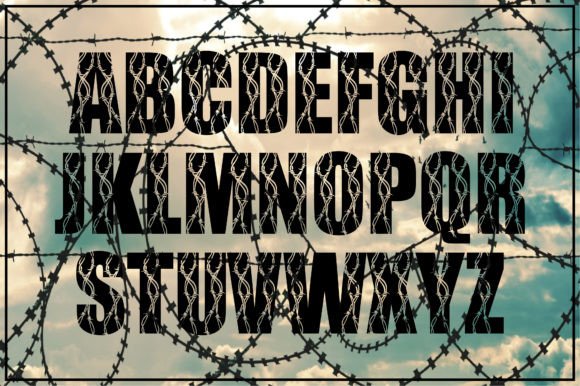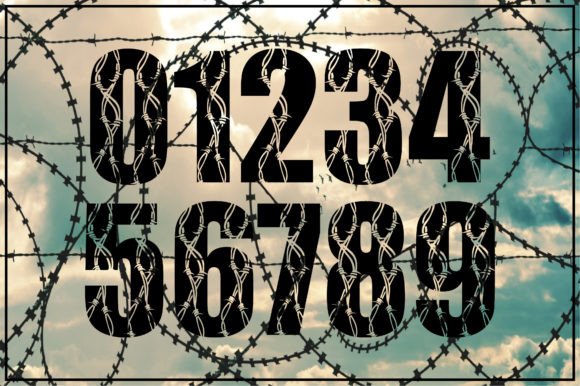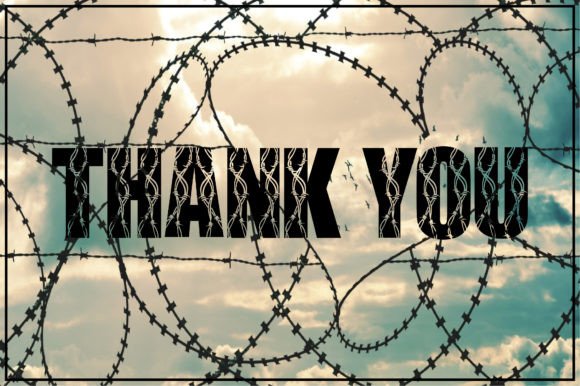
Get Ready to Unleash Your Creativity with the Barbed Wire Font
Meet the Barbed Wire Font, a cool and dramatic decorative font that’s perfect for any design or crafty idea. Its unique design makes it a valuable asset for designers looking to add a touch of sophistication to their work. Whether you’re a graphic designer, artist, or crafter, the Barbed Wire Font is sure to add a wow factor to your projects.
Barbed Wire Font Key Features
- Font Family: Barbed Wire Font is a sans-serif font family designed specifically for use in digital signage and wayfinding systems.
- Unique Characteristics: The font features a distinctive, hand-drawn aesthetic with a distressed, industrial feel, making it ideal for use in rugged or urban environments.
Designer Review: Barbed Wire Font
I was excited to dive into the “Barbed Wire Font” and see what it had to offer. Overall, I found it to be a unique and eye-catching font, but with some notable limitations. ✨
- ✨ Unconventional design: The “Barbed Wire Font” certainly stands out from the crowd. Its irregular, hand-drawn look gives it a charming, DIY feel that’s perfect for creative projects.
- ✨ Good legibility: Despite its unusual design, the font is surprisingly easy to read, especially in larger sizes.
- ✨ Versatility: The font comes in a range of weights and styles, making it suitable for a variety of applications, from headings to body text.
- ⚠️ Limited font size: While the font looks great in larger sizes, it can become difficult to read at smaller sizes. This may limit its use in certain applications.
- ⚠️ Limited language support: The font may not be suitable for languages that require more complex typography, such as Asian languages.
The “Barbed Wire Font” is a great choice for designers looking to add some personality to their projects. While it has some limitations, its unique design and good legibility make it a valuable addition to any font collection. With some careful use, this font can add a touch of whimsy and creativity to any design.
Getting the Most Out of the Barbed Wire Font
The Barbed Wire font is perfect for designs that need a distressed or vintage look. To get the most out of it, try combining it with other fonts and design elements to create a unique and eye-catching visual style.
The Barbed Wire font is commonly used in:
- Distressed or vintage-themed designs
- Western or country-inspired designs
- Grungy or edgy designs